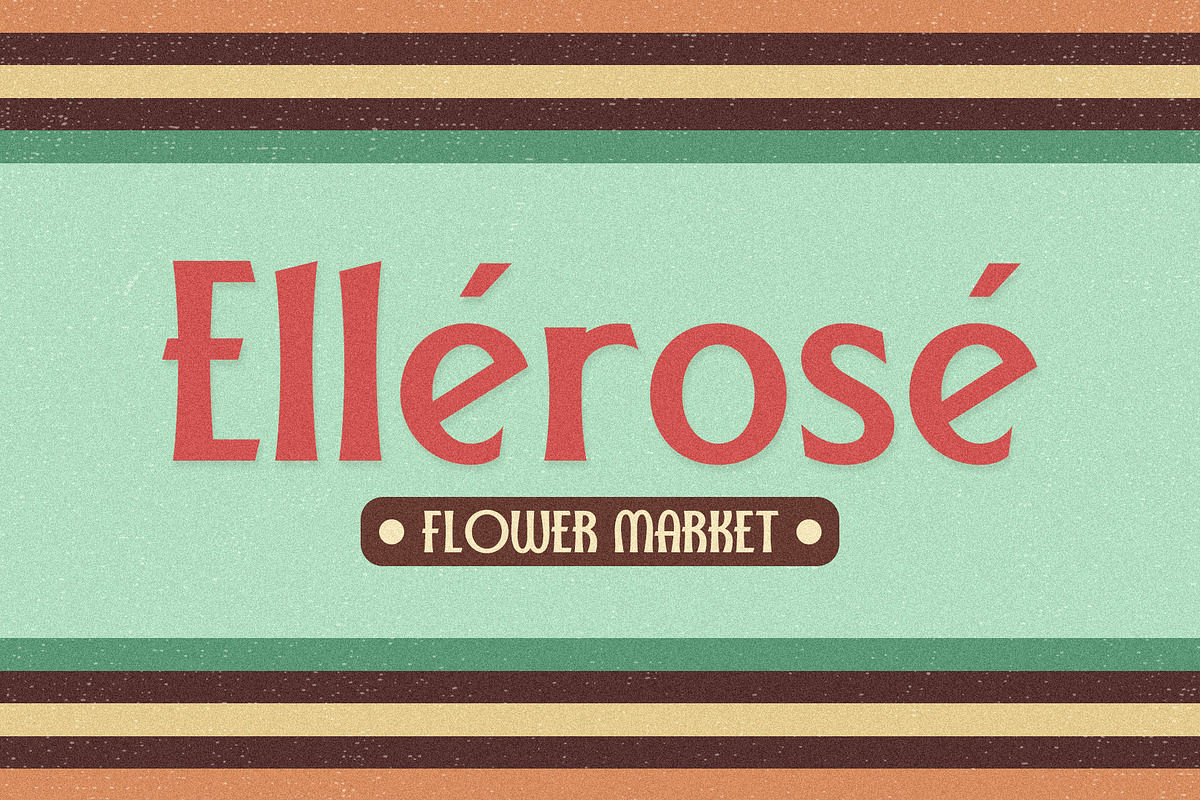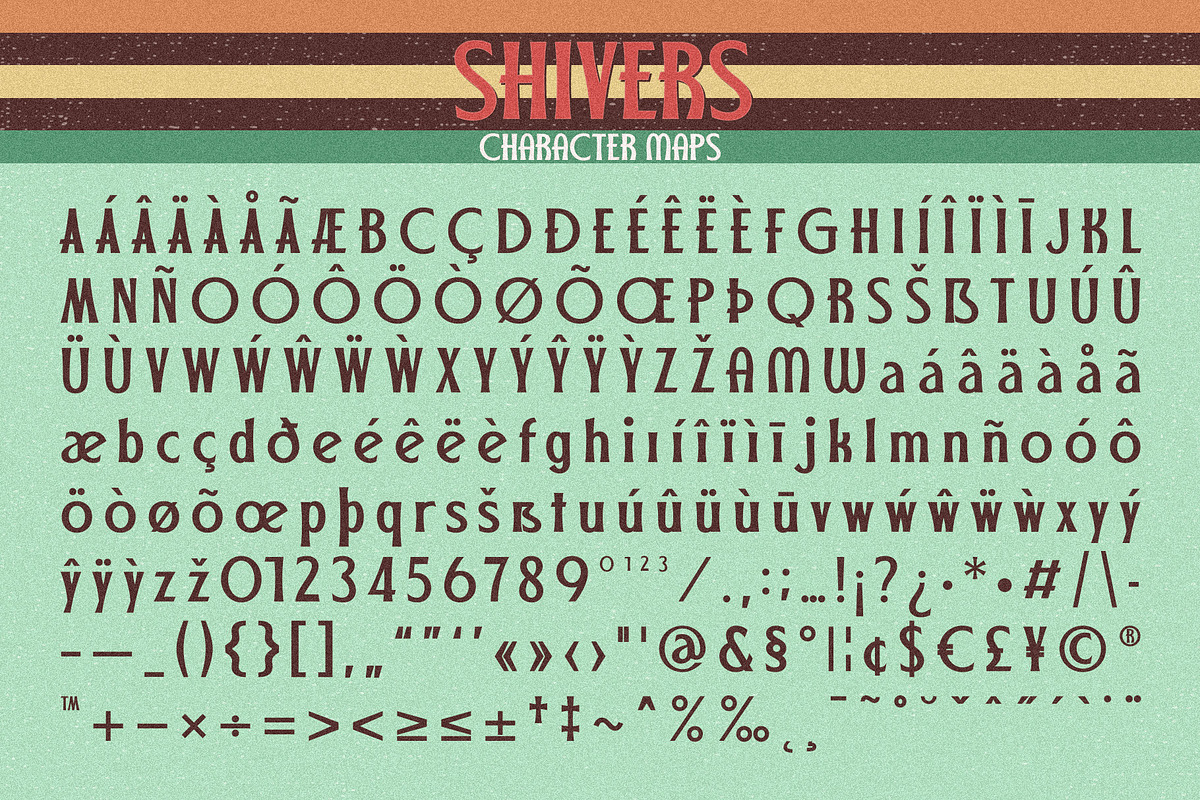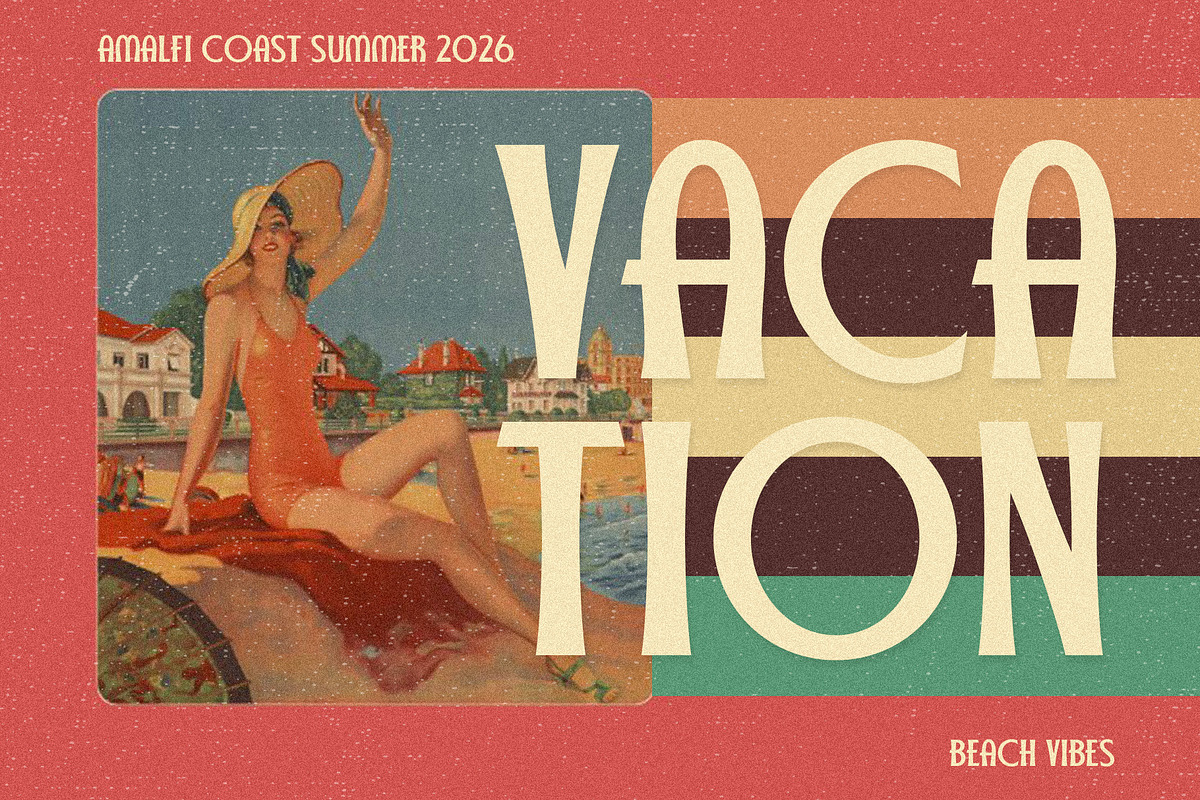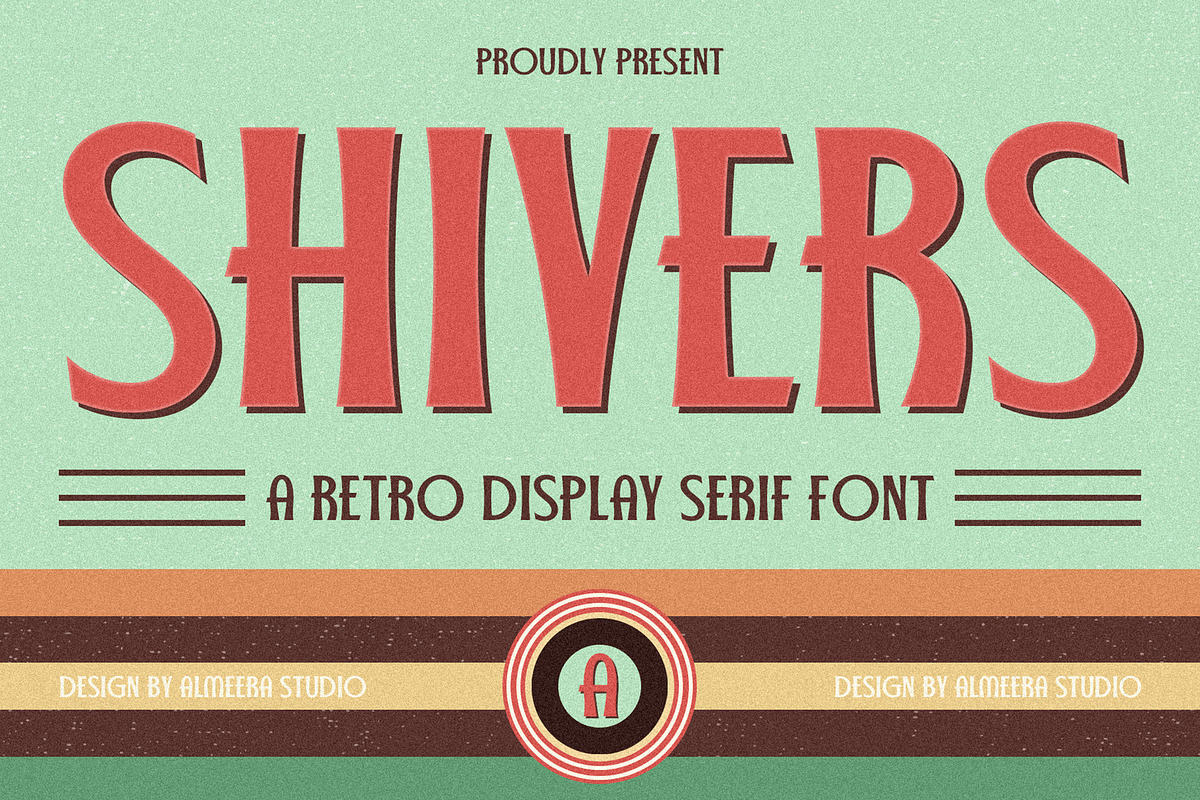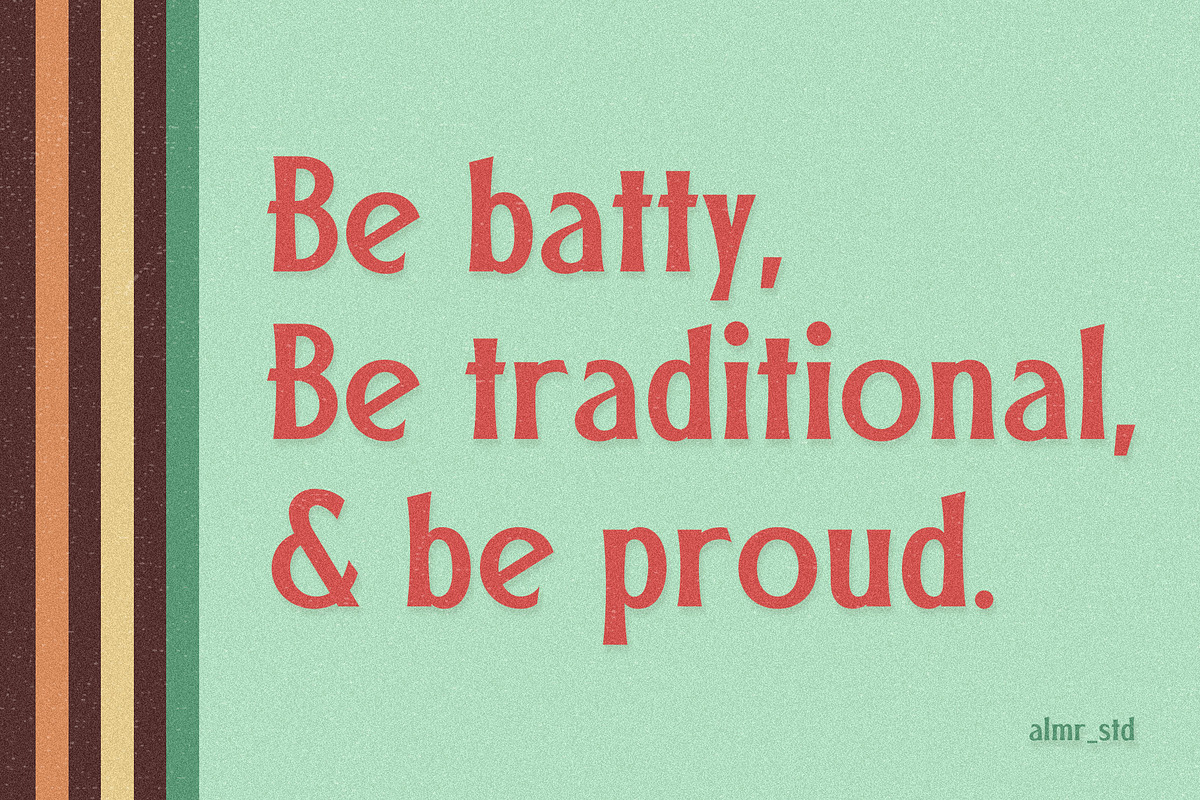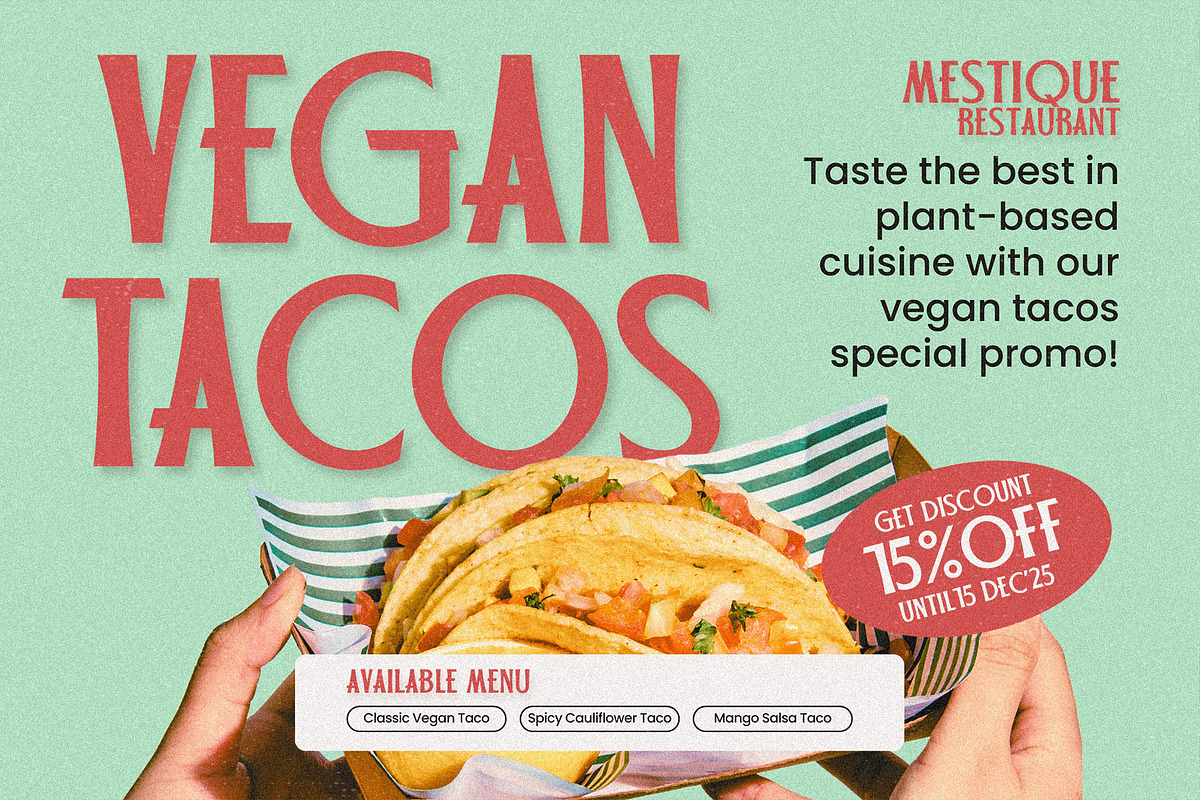
Shivers - Retro Serif
Introducing Shivers - Retro Serif. Shivers is a Retro Display Serif Font, elegant and simple font, best used as a display for headings, logos, branding, magazines, product packaging and invitations.